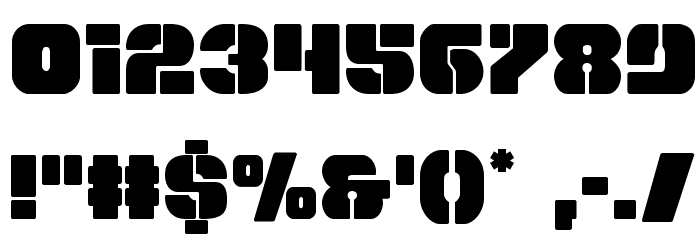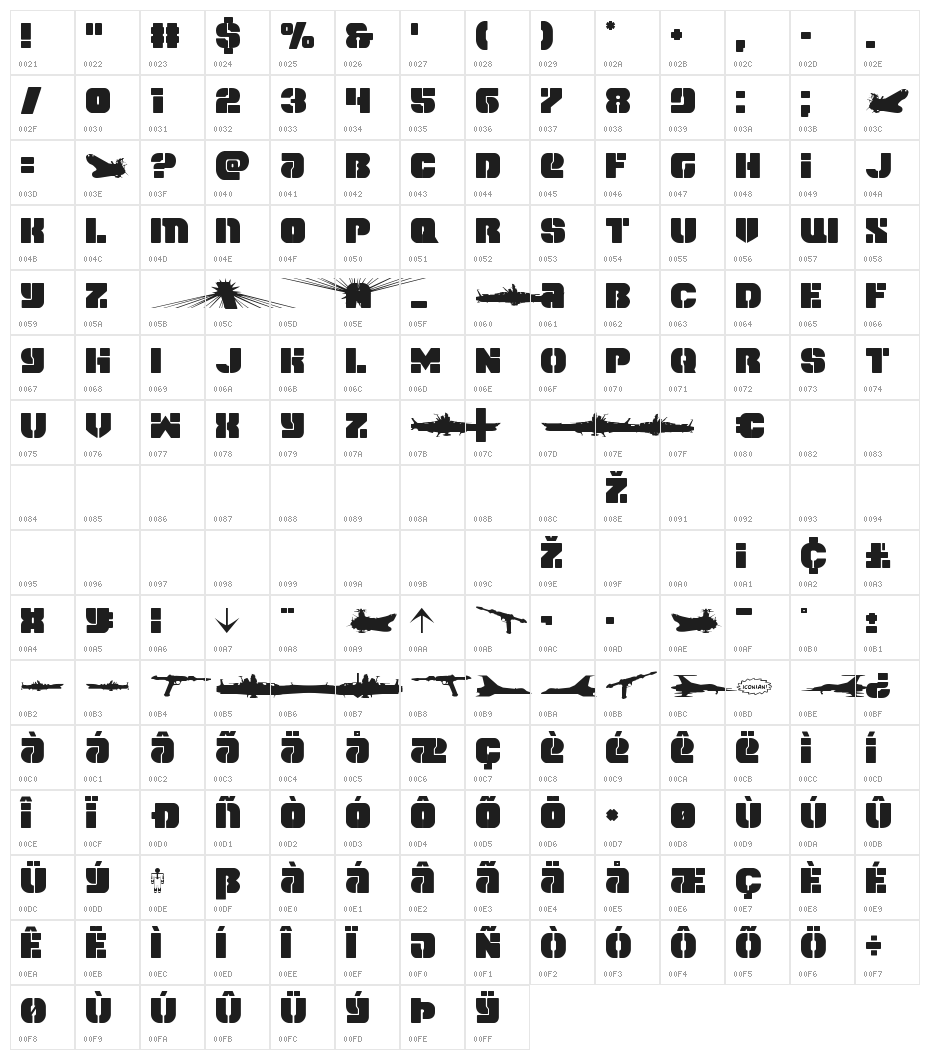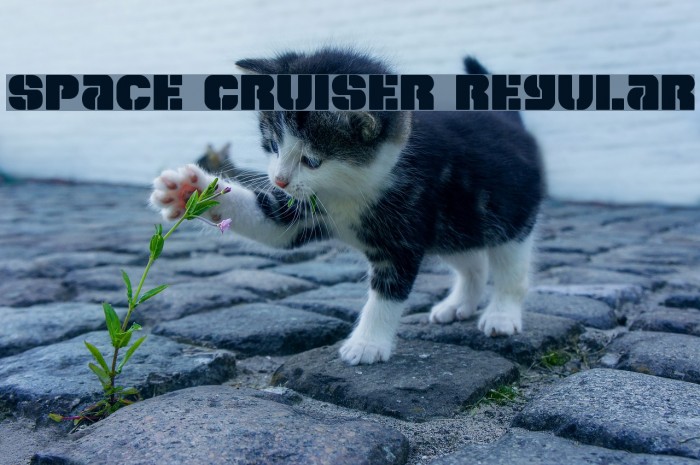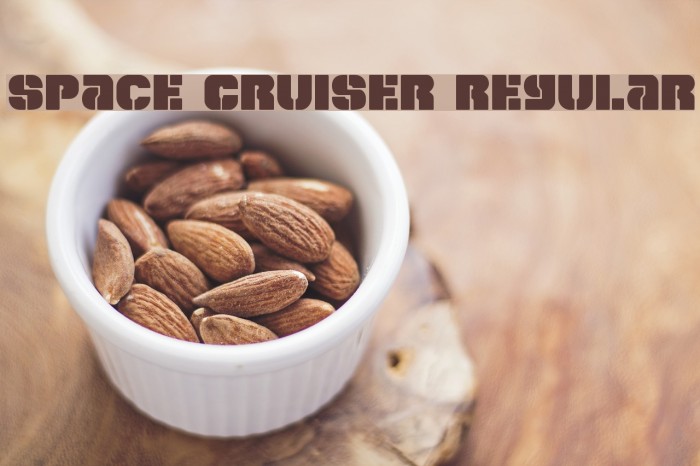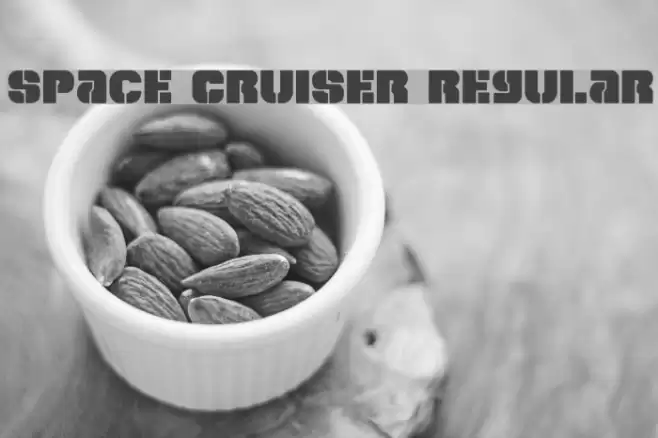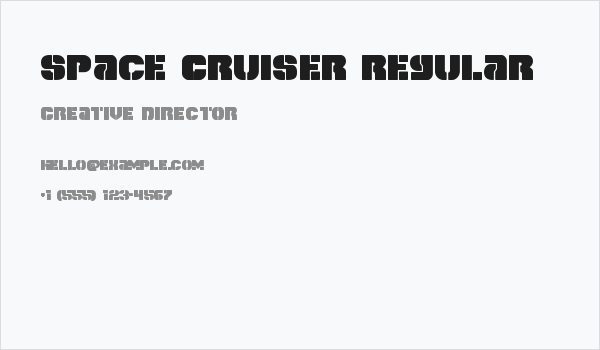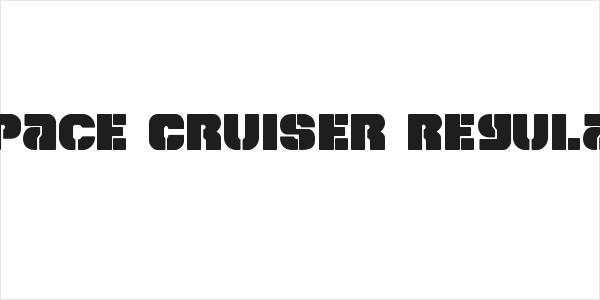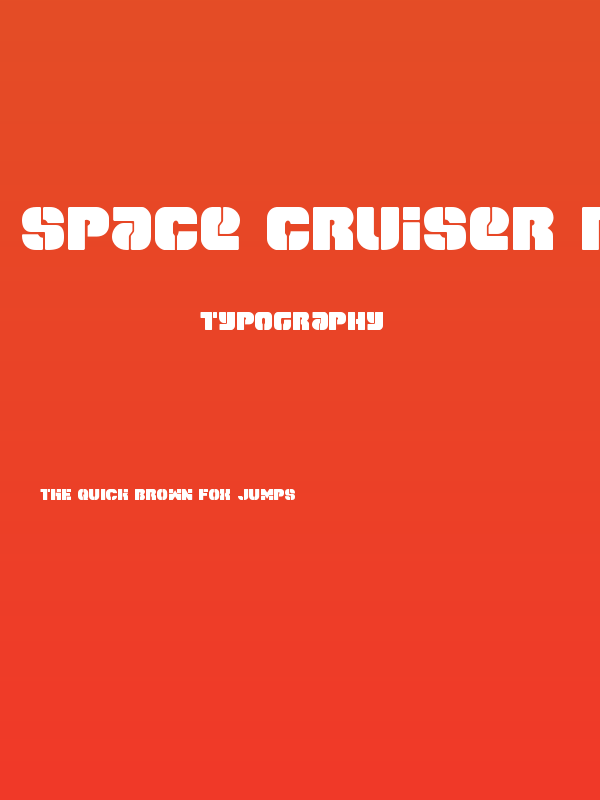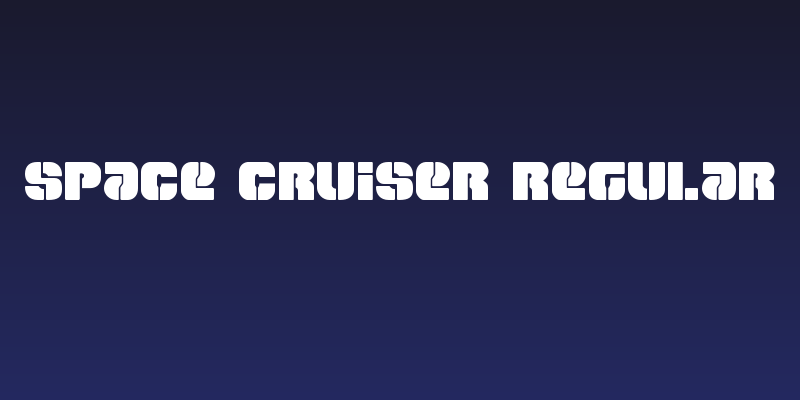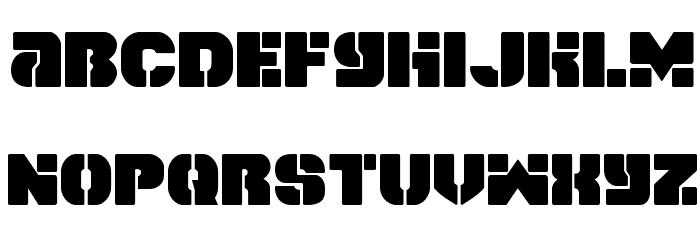
Space Cruiser Regular Font
Space Cruiser Regular Description
This font features a bold, futuristic design with a strong geometric influence. Each character is constructed with thick, block-like shapes that convey a sense of strength and modernity. The uppercase letters are particularly striking, with their solid forms and minimal negative space, creating a compact and impactful appearance. The lowercase letters maintain this bold aesthetic, ensuring consistency across the typeface. Numbers and special characters are equally robust, making them suitable for attention-grabbing designs. The overall style is reminiscent of sci-fi themes, ideal for projects that require a modern and dynamic look.
Proposed ProjectsIdeal for sci-fi themed posters, video game titles, tech branding, and futuristic event flyers.